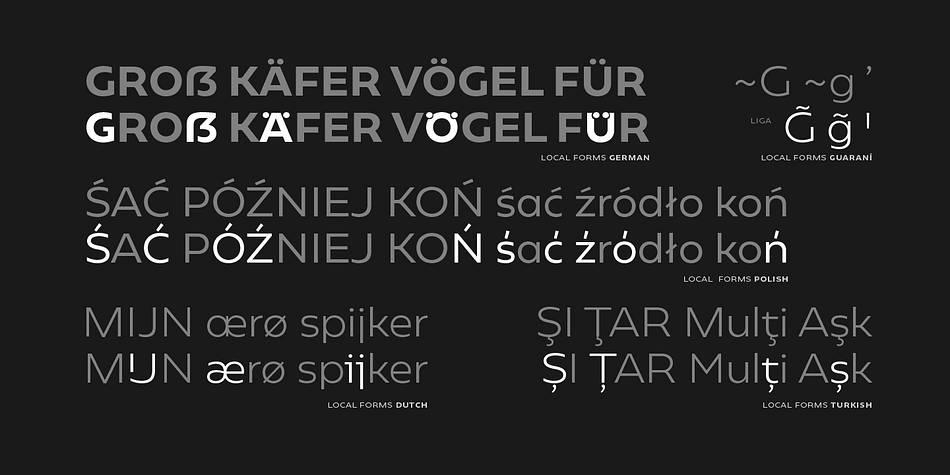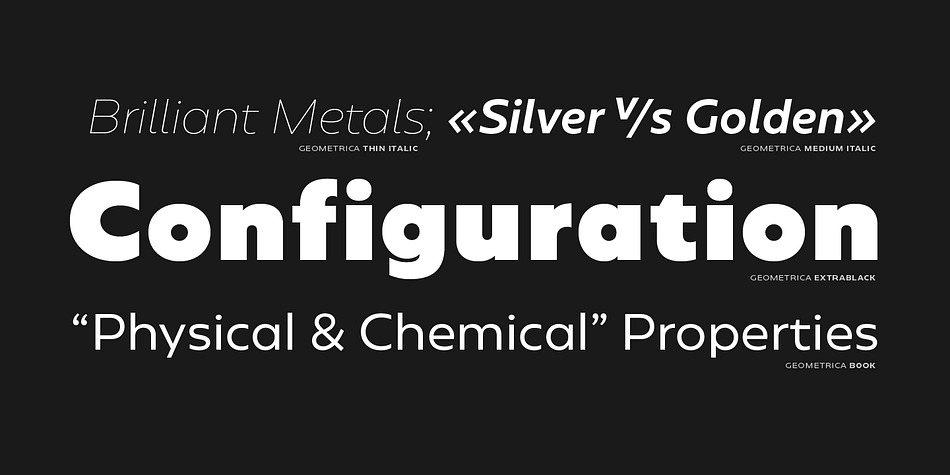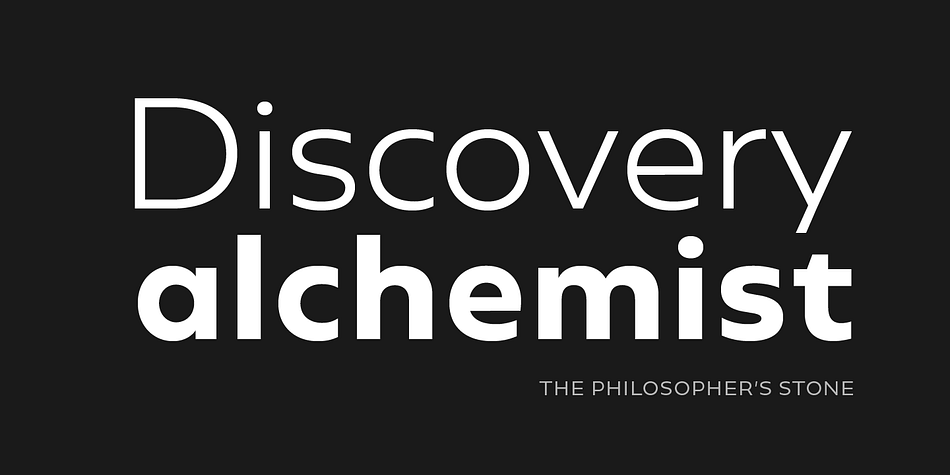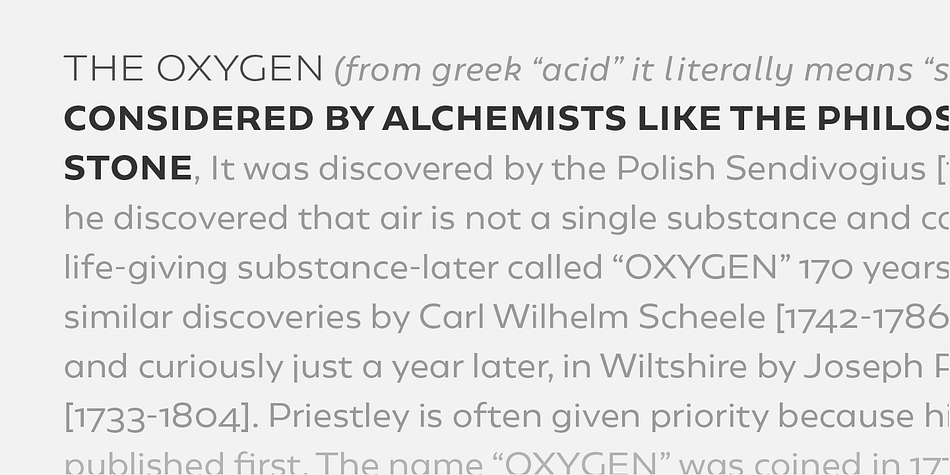
Geometrica
Designed by Pedro Gonzalez Jorquera, PeGGO Fonts and Latinotype Team, Geometrica is a sans serif font family. This typeface has twenty styles and was published by PeGGO Fonts.
Geometrica is a low contrast rounded geometric Sans with a mid 19th/early 20th century simplicity air yet modern and minimalist. The font was inspired by the idea of creating a typeface with uppercase/lowercase characters and small caps having the same proportion. The result is a font with a moderate width, generous x-height, and short ascenders and descenders, giving it a compact and clean look.
It comes in 10 weights plus italics—each variant with 589 glyphs—and contains a number of OpenType features that allow you to create very ‘good looking’ designs.
Geometrica provides a wide range of choices for any design project and it is especially recommended for UI/UX and app design, branding and corporate design, In 2017 it was selected as one of the best 10 Sans of the year by Fontshop.
*This project belongs to Pedro Gonzalez and it was developed by Peggo Fonts foundry under the supervision of Latinotype Team. This new version has new stylistic alternates, new language support added and new formal improvements on the existing glyphs.